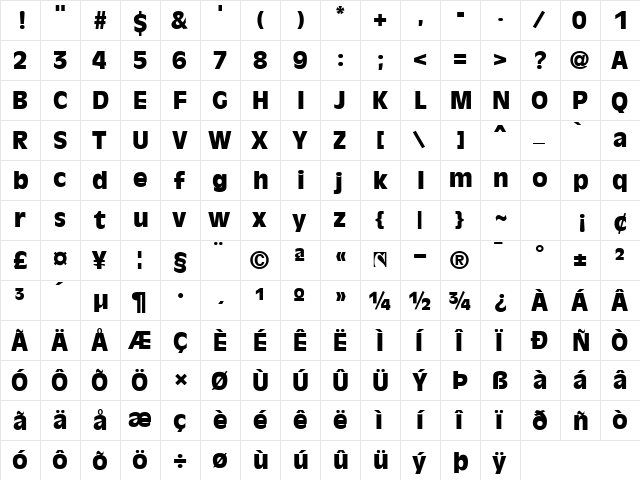
Antique Ovation Black Regular
Design Context for Antique Ovation Black Typeface
Antique Ovation Black wears its vintage influences proudly, with letterforms that recall mid-century signage, classic packaging, and nostalgia-driven design.
Font Pairing: Combine Antique Ovation Black with a simple slab or neutral sans — period-accurate companions reinforce the vintage feel without competing for attention.
Pro Tip: Use Antique Ovation Black for headlines and pull quotes rather than body copy — its personality is best appreciated in short, focused bursts.